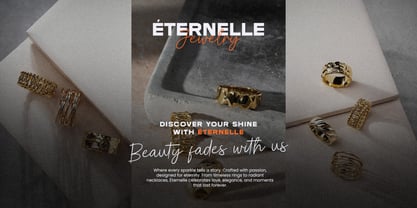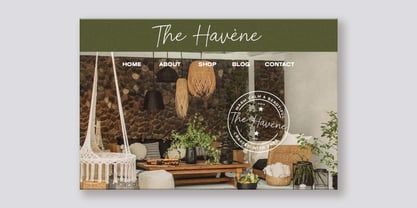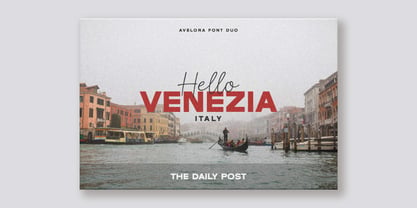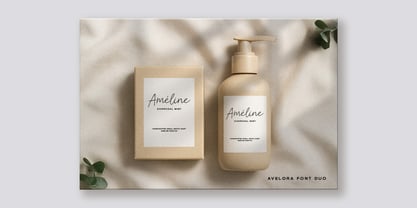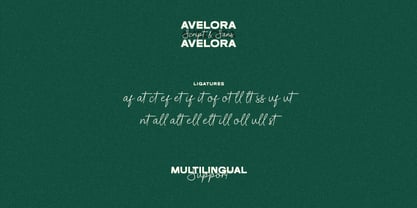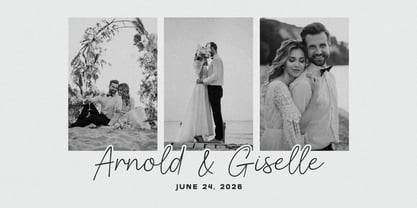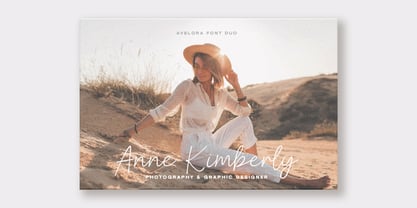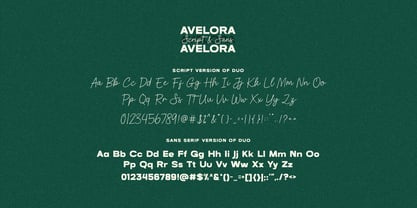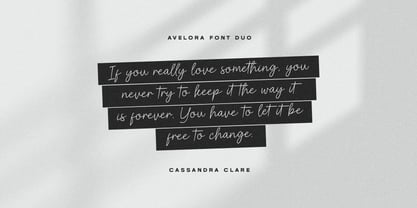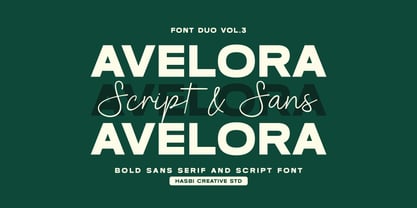
Avelora
by Hasbi Creative
Avelora Font Duo is a stylish and versatile typeface combination featuring an elegant handwritten script and a clean geometric sans serif. Designed to balance sophistication with readability, Avelora is the perfect choice for branding, logos, wedding invitations, packaging, fashion, social media, and editorial design.
With its modern and feminine personality, Avelora brings a touch of luxury and timeless elegance to any project. The flowing script adds a creative, personal feel, while the sans serif provides a strong, professional foundation—making them work beautifully together or separately.
What’s Included:
- Uppercase & lowercase
- Numbers & punctuation
- Ligatures (Script)
- Multilingual support
Perfect for:
- Logos & branding identity
- Instagram & social media posts
- Product packaging & labels
- Wedding invitations & stationery
- Editorial design & magazine headlines
If you’re looking for a modern font duo that is both stylish and versatile, Avelora will elevate your design projects with elegance and charm.